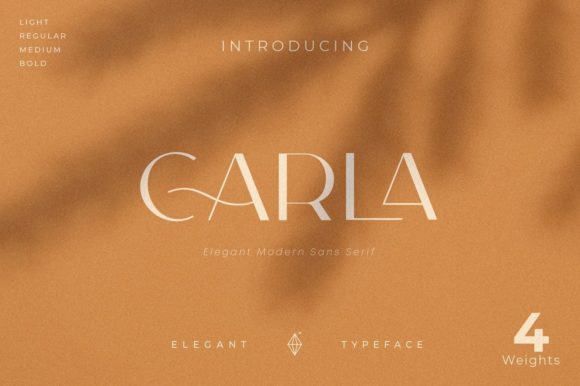
Introducing Carla Font, the ultimate choice for those seeking the perfect blend of elegance and simplicity. Crafted with meticulous attention to detail, this sans serif masterpiece by Creative Corner is a true game-changer in the world of typography. Get ready to embark on a journey of artistic expression and unleash your creativity like never before.
Carla Font is not just your ordinary font, it is a work of art that effortlessly captures attention and leaves a lasting impression. Its sleek and slender design adds a touch of sophistication to any project, making it the go-to choice for designers, artists, and creatives alike.
But what sets Carla Font apart from the rest? Its PUA encoding feature is a game-changer! With just a few clicks, you can unlock a treasure trove of glyphs and swashes, giving you limitless possibilities to customize and personalize your designs. Say goodbye to limitations and hello to boundless creativity!
Whether you're designing a logo, creating stunning graphics, or crafting eye-catching headlines, Carla Font will be your trusty companion. Its versatility allows it to seamlessly adapt to any project, effortlessly complementing your vision and enhancing its impact.
Imagine the joy of effortlessly incorporating Roman numerals into your designs. Carla Font is the best font for Roman numerals, exuding an air of timeless elegance and sophistication. From wedding invitations to historical documents, this font elevates any text it graces, captivating the eyes and stirring emotions.